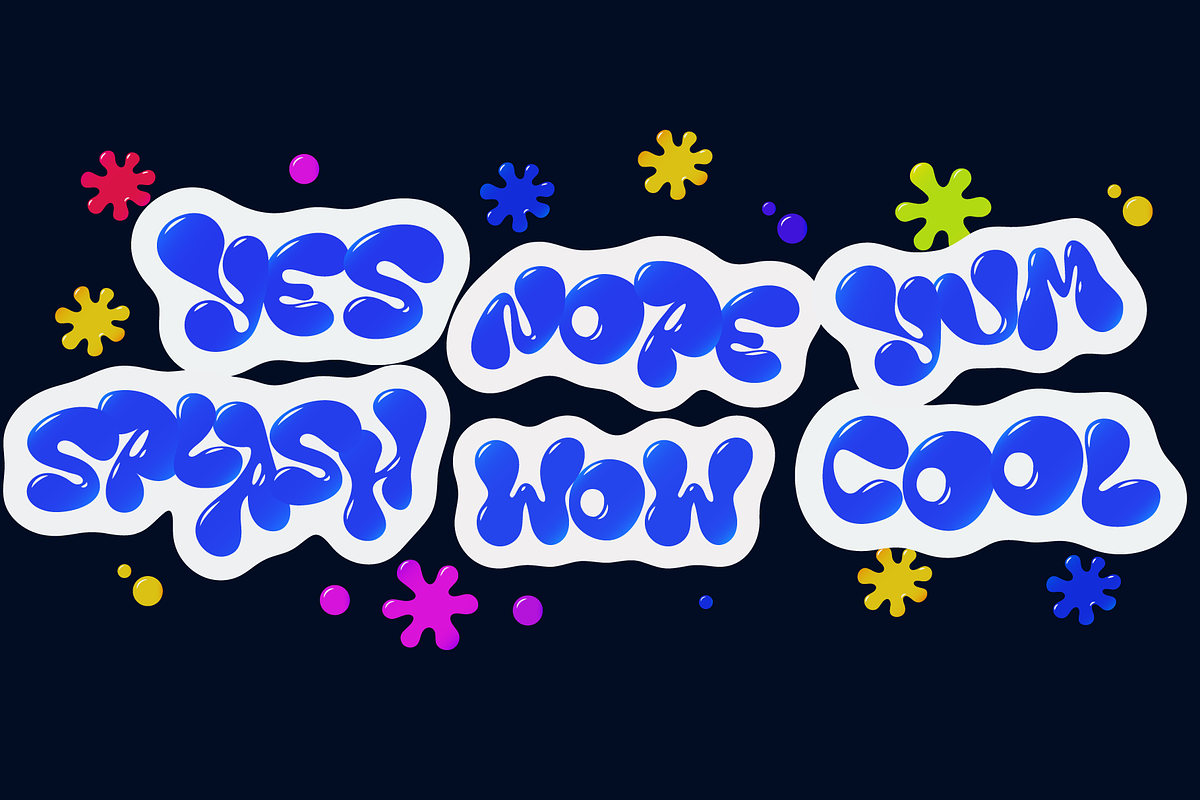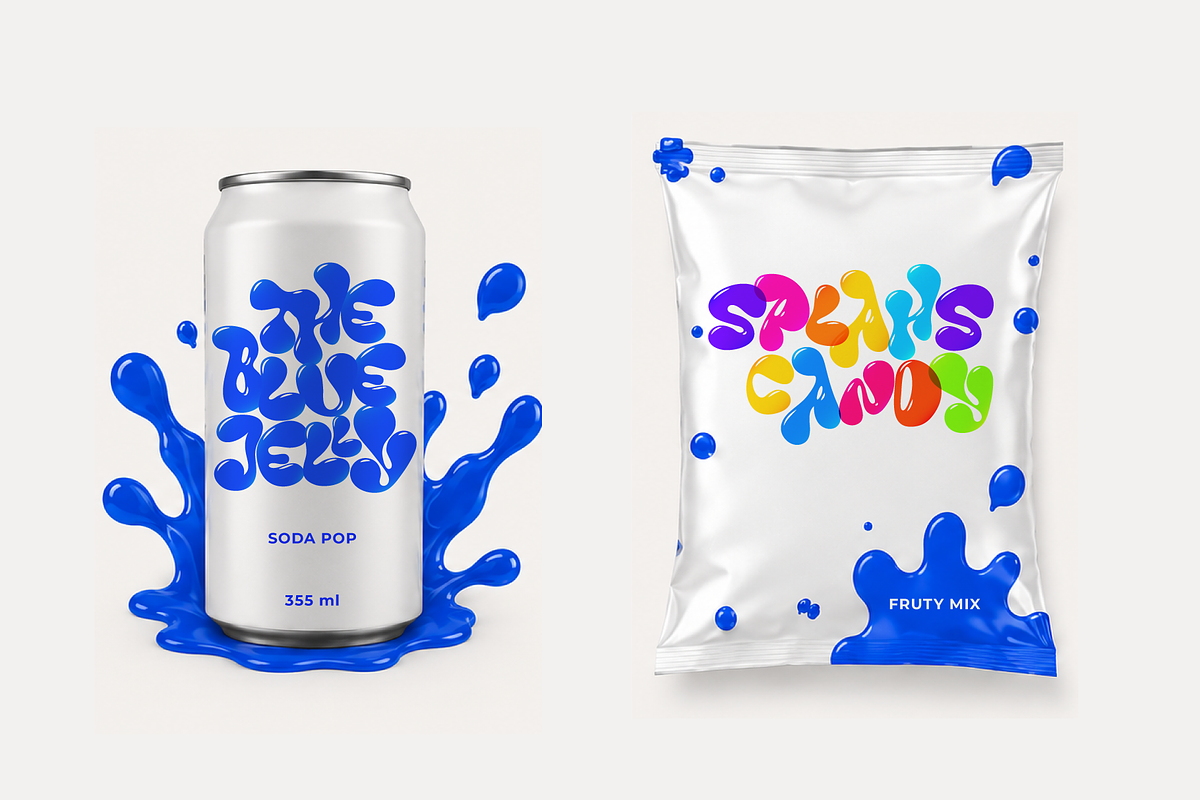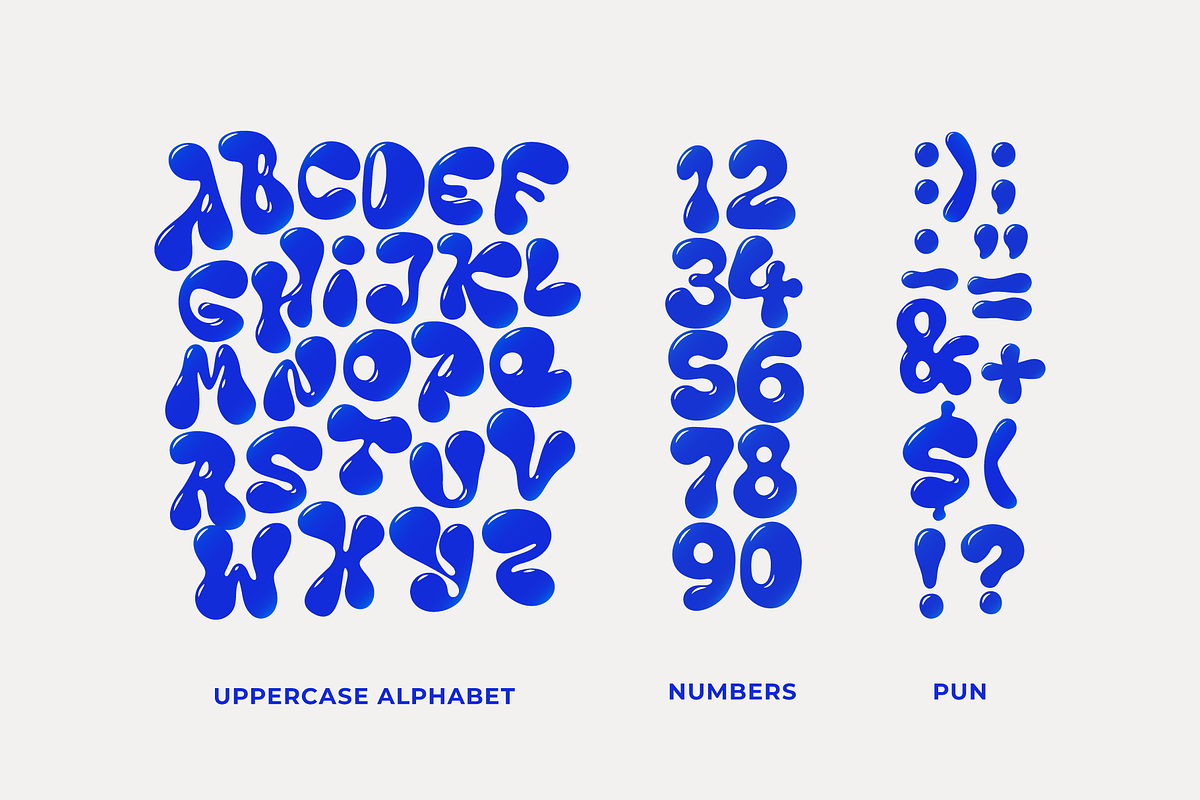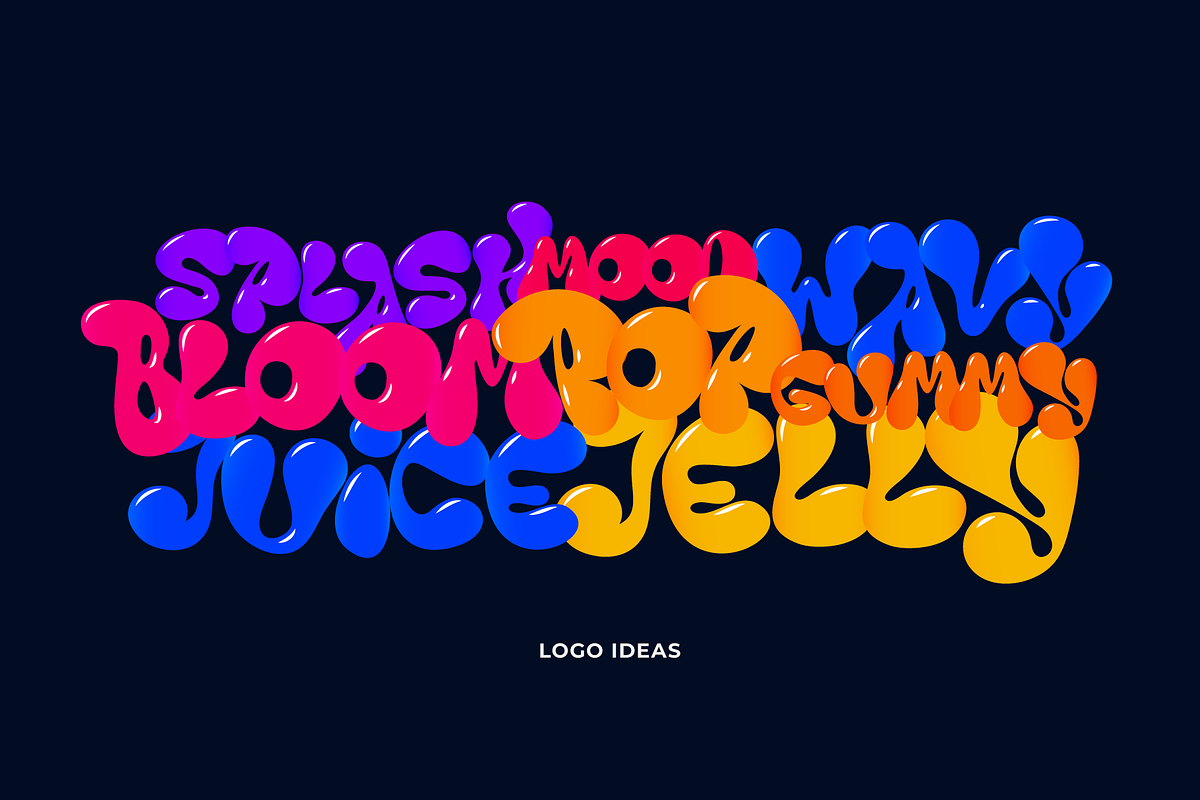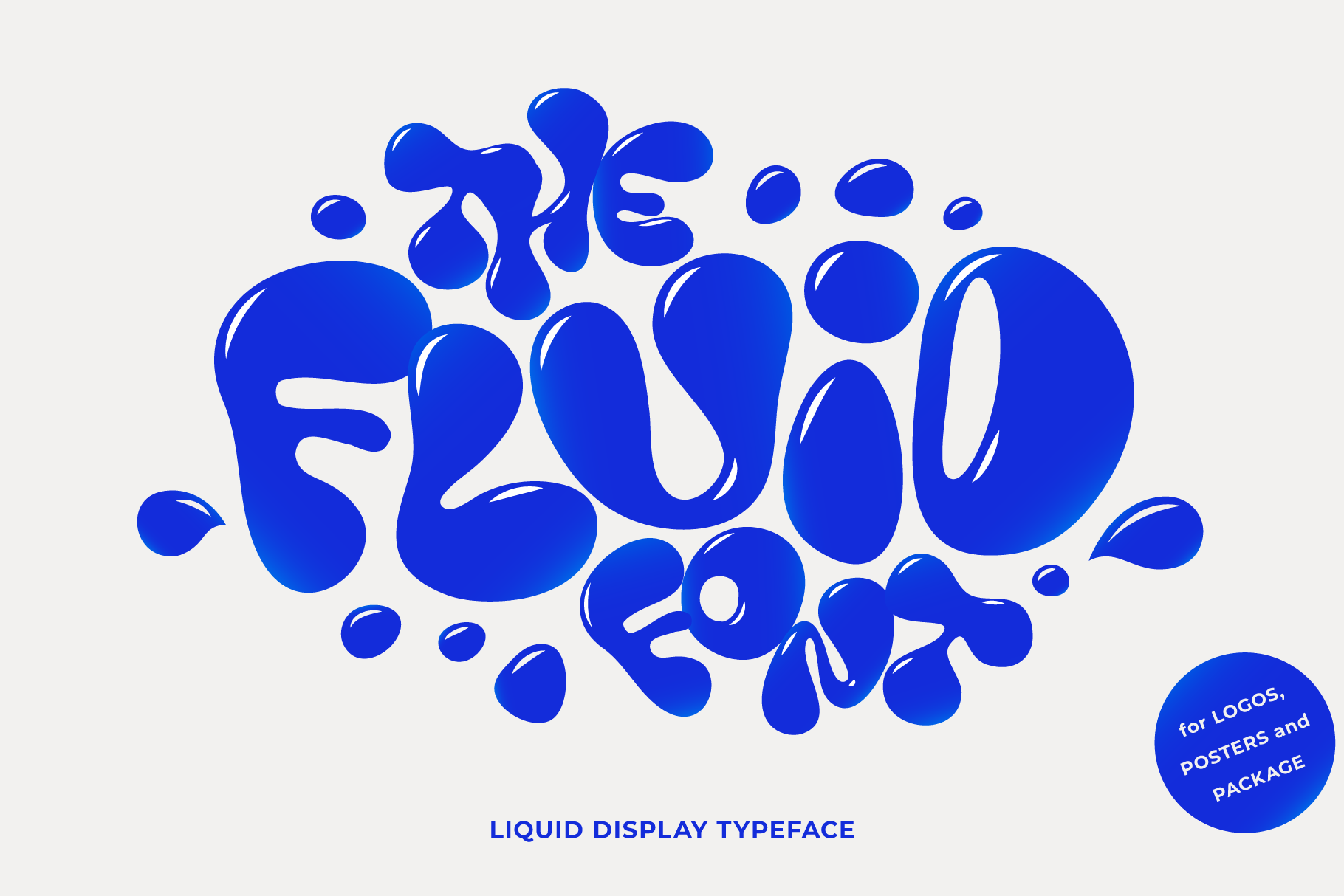
Fluid - Bubble Liquid Font
Bubble Liquid Display — a bold, juicy typeface
Bubble Liquid Display is a playful display font inspired by liquid blobs.
Each character feels soft, inflated, and full of personality—made to grab attention instantly in headlines and brand moments.
Perfect for
Logos for fun brands (snacks, drinks, kids products, entertainment)
Posters, flyers, and event promotions
Packaging, labels, and product branding
Merch designs (t-shirts, stickers, tote bags)
Social media posts, thumbnails, and bold cover art
Summer campaigns, party invitations, and playful editorial titles
Display typeface with uppercase letters
Punctuation & symbols
Ideal for large sizes (titles, headers, statement text)